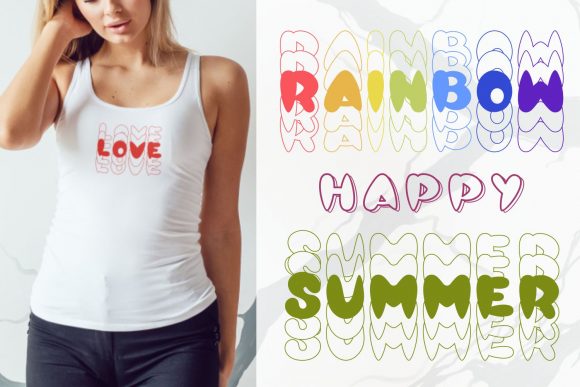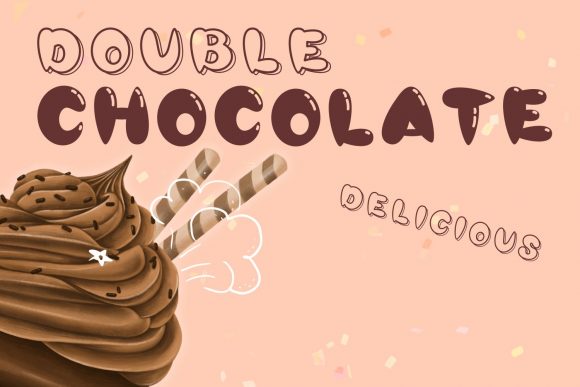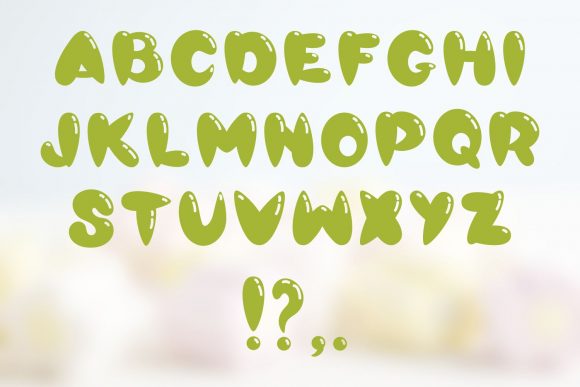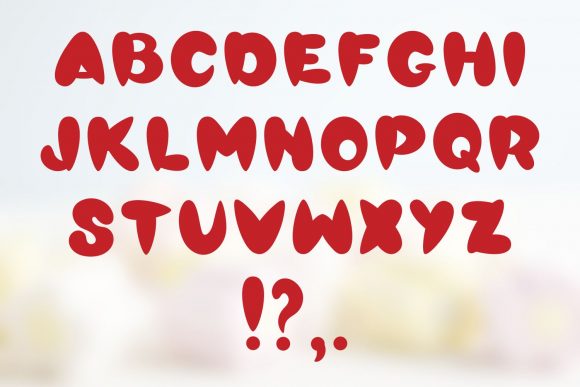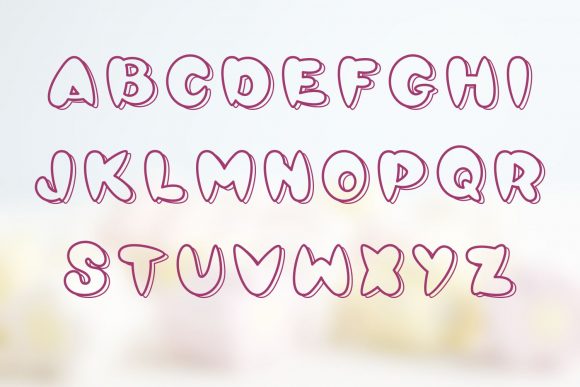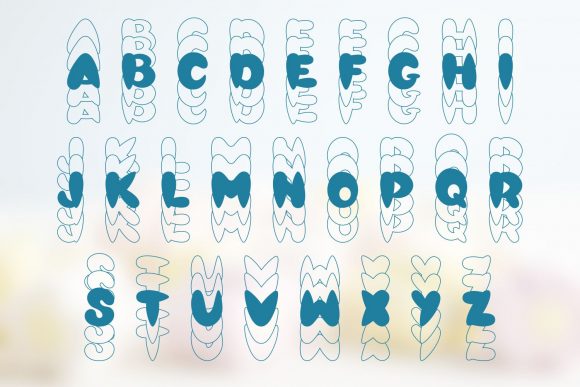
Have you ever stared at a blank canvas, waiting for inspiration to strike? You’ve got an idea, but it’s just not quite popping. That’s where the magic of the right font comes in – and we’re excited to introduce you to the Glossy Font!
This adorable display font is more than just a pretty face; it’s a way to add personality and whimsy to your creative project. Whether you’re designing a logo, creating a social media campaign, or crafting a unique graphic, the Glossy Font is the perfect companion to help bring your idea to life. And for designers, that’s exactly what they need – a versatile tool that can elevate their work and make it stand out in a crowded digital landscape.
Glossy Font Key Features
- Unique Characteristic: Glossy Font features a unique “glossy” effect, achieved through advanced font rendering techniques
Glossy Font Review
Glossy Font is a sleek and modern font that can elevate your design to the next level. ✨ Its clean lines and smooth curves make it perfect for creating a polished and professional look. ✨ The font is highly legible, even at smaller sizes, which is a major plus for designers who need to ensure their text is easily readable. ✨ Additionally, Glossy Font is highly customizable, allowing you to adjust the font’s weight, opacity, and other properties to suit your design needs.
- ⚠️ Limited character set: Glossy Font may not include all the characters you need, which could be a problem for designers who need to support multiple languages or special characters.
Glossy Font is a solid choice for designers who want a modern and polished look. While it may have some limitations, its benefits far outweigh its drawbacks. With a little creativity and experimentation, Glossy Font can be a valuable addition to your design toolkit.
Glossy Font: A Practical Application Guide
Glossy font is commonly used in:
- Designing eye-catching headlines and titles.
- Creating stylish and modern graphics.
- Adding a touch of glamour to your text.
Tips: Use glossy font sparingly to avoid overwhelming your design.